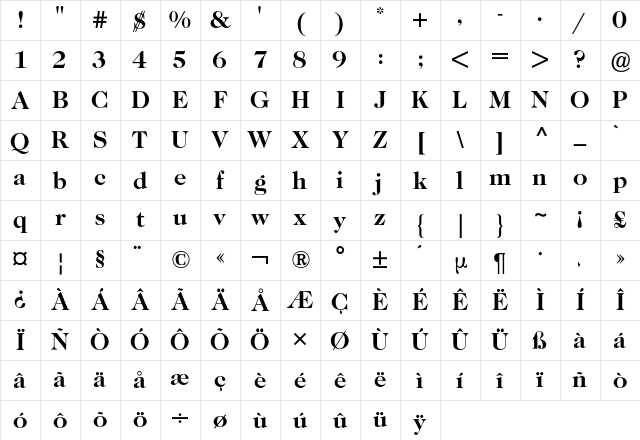
Caslon Two TwentyFour BQ Regular
Caslon Two TwentyFour BQ Family
Complete Caslon Two TwentyFour BQ Regular glyph index. Displaying only characters natively supported by Caslon Two TwentyFour BQ Regular font.
Design Context for Caslon Two TwentyFour BQ
Caslon Two TwentyFour BQ is a composed and adaptable typeface that performs quietly and consistently across a wide range of design contexts.